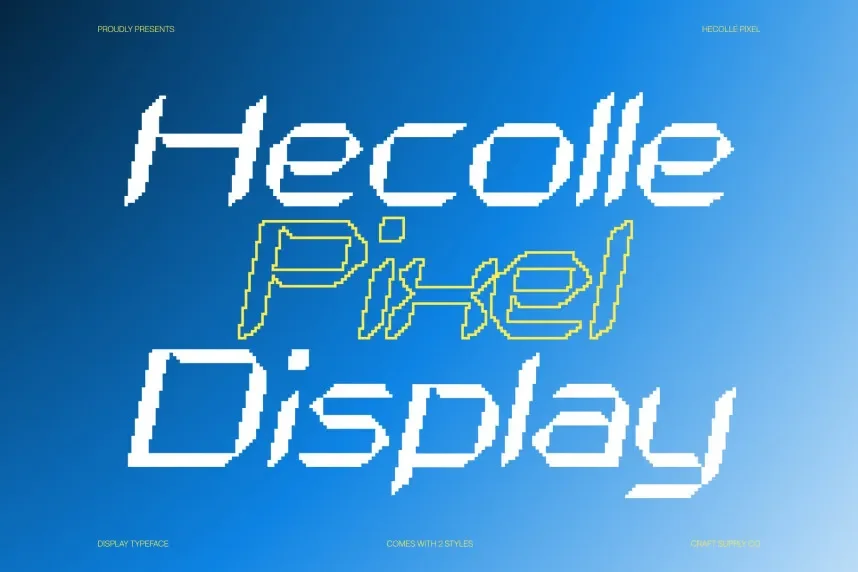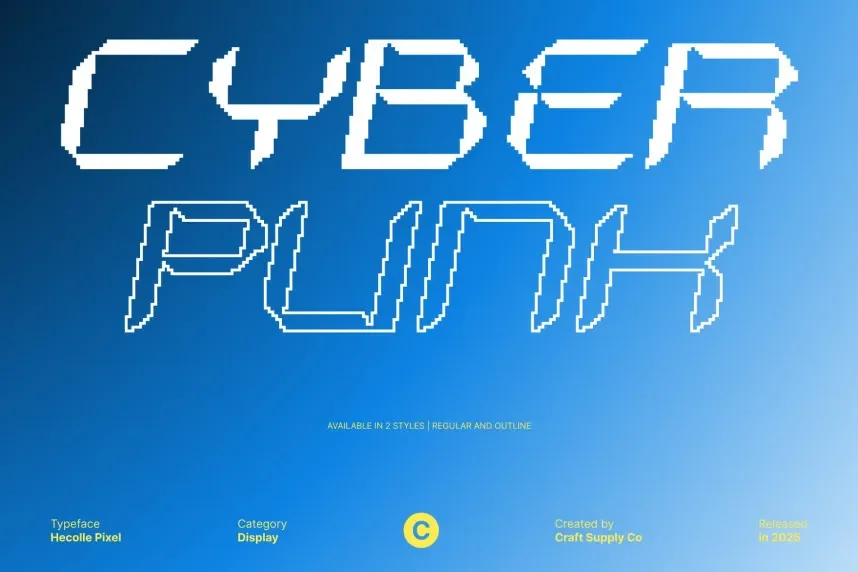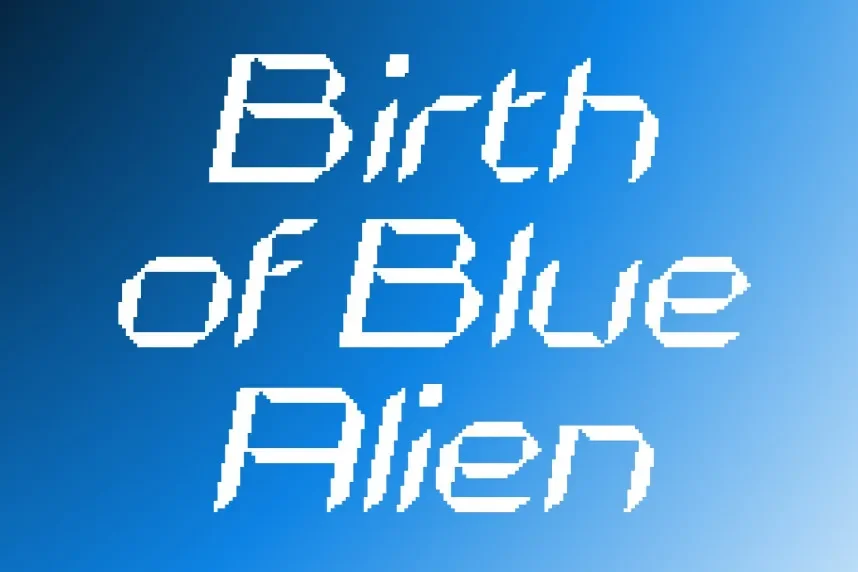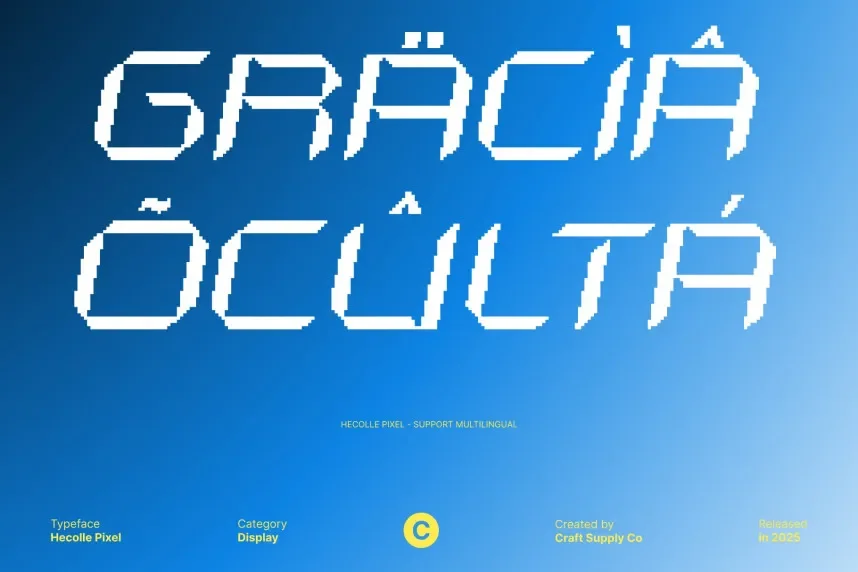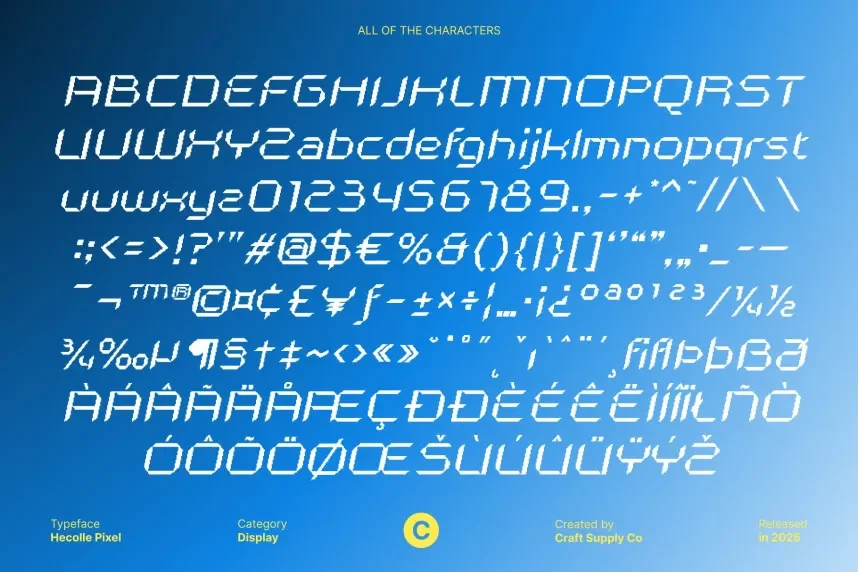
Hecolle Pixel Font is a unique, pixel-based typeface that combines sharp angles with clear, legible design. It’s perfect for tech-related projects that need to convey a digital vibe, such as websites, apps, and digital signage.